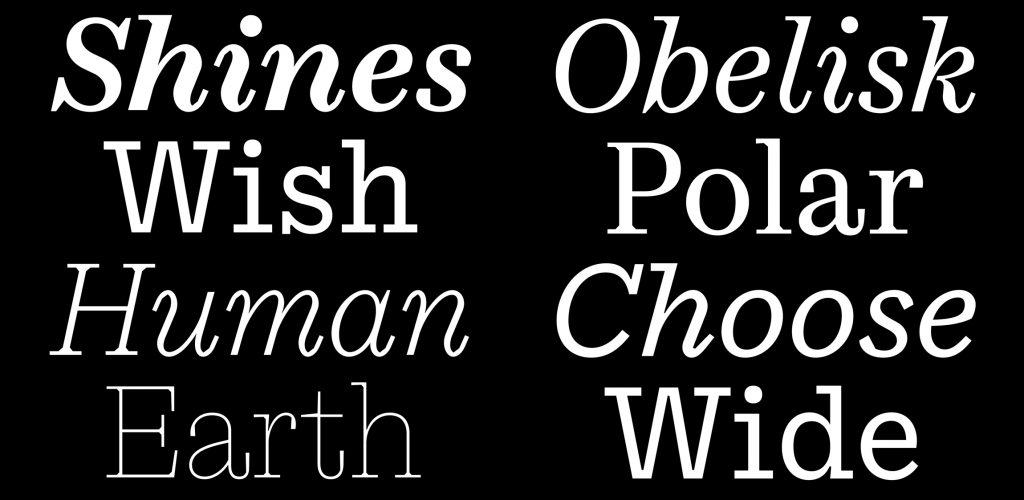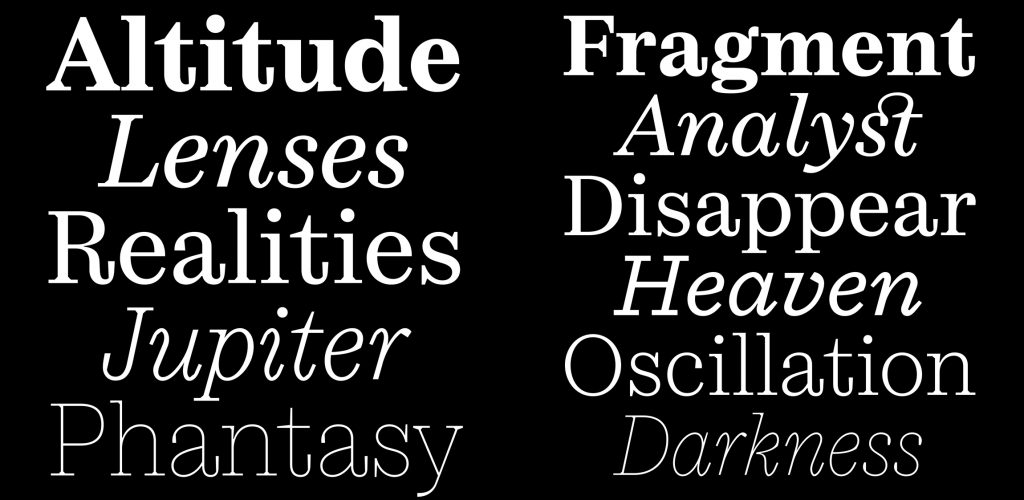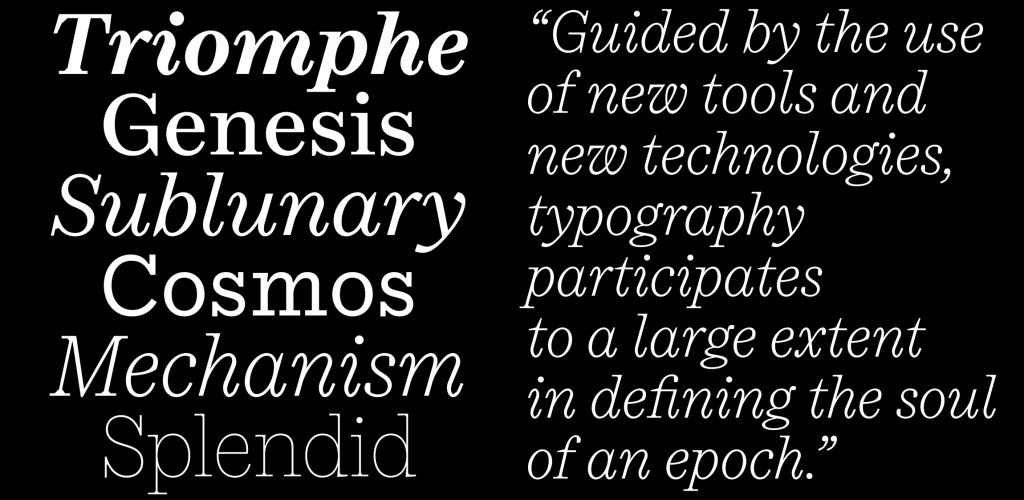
Name: Cardone
Designer: Fátima Lázaro
Foundry: 205TF
Release Date: September 2021
Back Story: Cardone got its start in 2016 as a student project at the EsadType postgraduate course in Amiens, France. Lázaro’s goal was to create an optimized type family for editorial use, striking a balance between aesthetic experimentation, functionality, and legibility.
During her research, she found herself drawn to the vertical stress, high contrast, and ball terminals of early Scottish modern typefaces, later called Scotch Romans. Her adaptation includes softer transitions and bracketed serifs that provide a broader, sturdier, more robust appearance for small running text while maintaining elegance.
Lázaro says, “The main challenge was to appropriate a certain tradition or particular historical reference and then detach myself from it; I was not trying to create a revival. It took around five years to develop the full family, working after hours and over holidays, with guidance from my beloved professors and fellow colleagues.”
Why’s it called Cardone? Its name is inspired by the prickly purple thistle, Scotland’s national emblem for over 500 years. The English word “thistle” comes from the Latin term Carduus, and Cardone follows from there.
What are its distinguishing characteristics? Cardone strikes a balance between elegance and robustness: its ample curves contrast with the brutality of its lines and the verticality of the character axes. Its letters feature carefully-considered details, long terminals, geometric interior counters, and tapered stems. Each style is pushed to the point of extreme simplicity and efficiency, both in structure and in formal detail.
The typeface’s five weights from Thin to Bold, each with its own italic, were designed separately to emphasize the uniqueness of their design and create individually distinct personalities. The italic’s delicate, sinewy strokes, serifs, and long, fluid tails stand in opposition to the abrupt and rational forms of the Roman, and serve to create a kind of dynamism that lends a warmer tone to the text.
The family also features a Micro version, intended for settings smaller than eight points. “Micro was great fun and freer to draw,” says Lázaro. “Its forms are even more radical, mechanical and straightforward than those of the larger sizes.”
What should I use it for? Cardone was drawn mainly for use with running text and optimized for editorial design purposes. The designer says, “Use it for catalogs, monographs, independent magazines, or small self-initiated projects and publications in both digital and print. I want to be surprised by the projects that designers can create with my typeface.”
What other typefaces do you like to pair it with? Cardone’s characters fit well with Grotesque typefaces such as Album Sans by Thomas Huot-Marchand, Salmanazar by Juliette Collin, Scto Grotesk by Schick Toikka or Brut Grotesque by Bureau Brut.